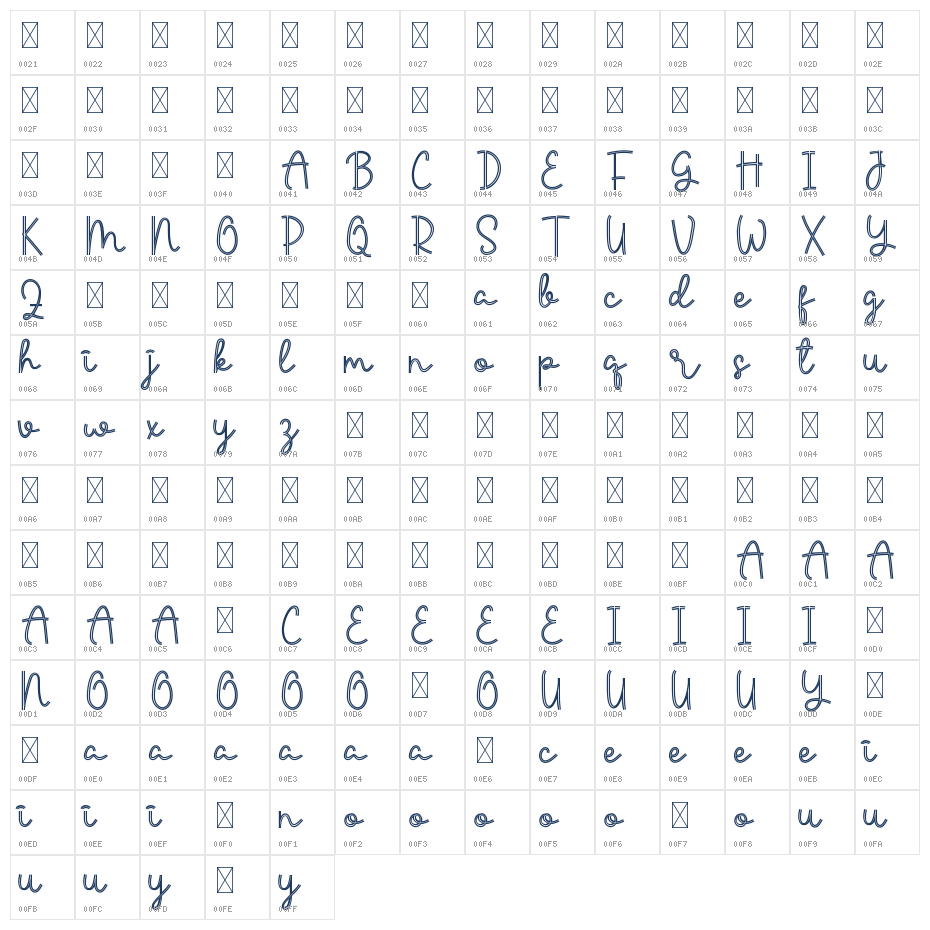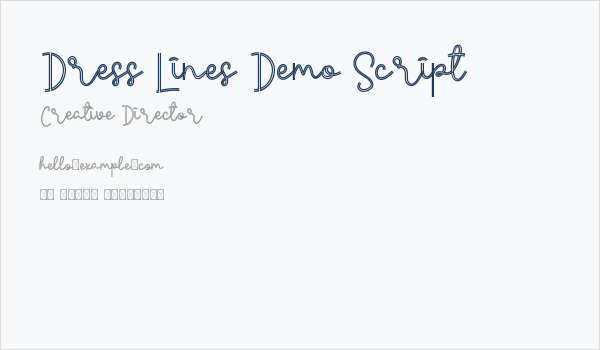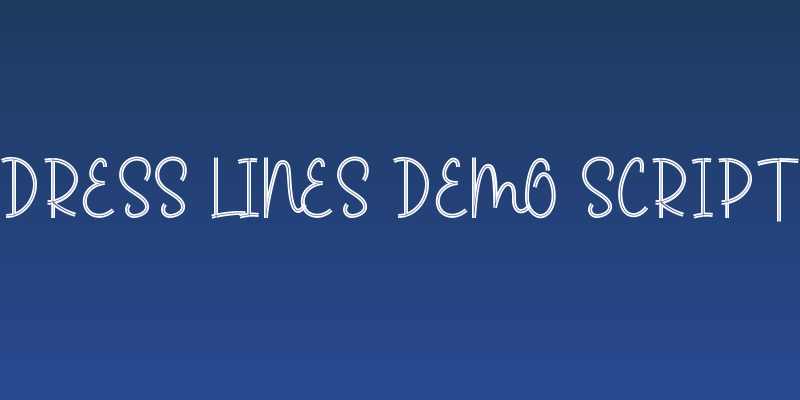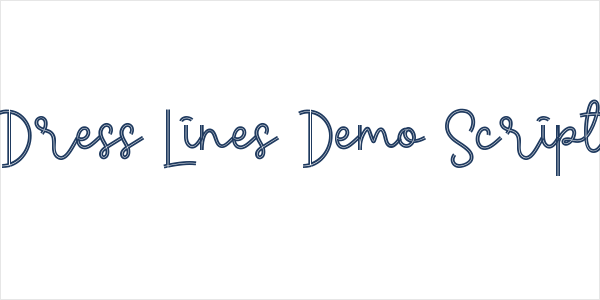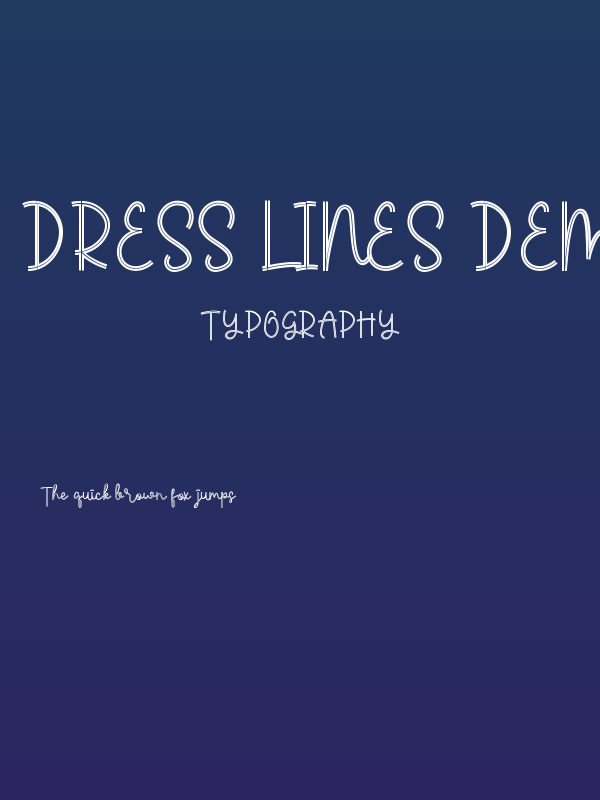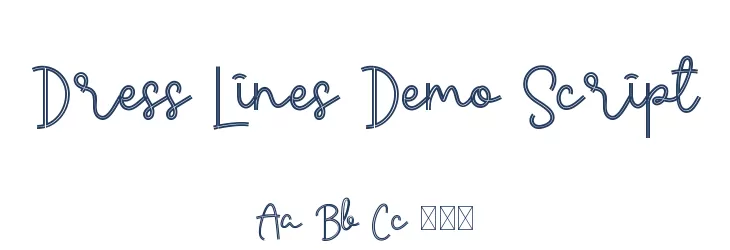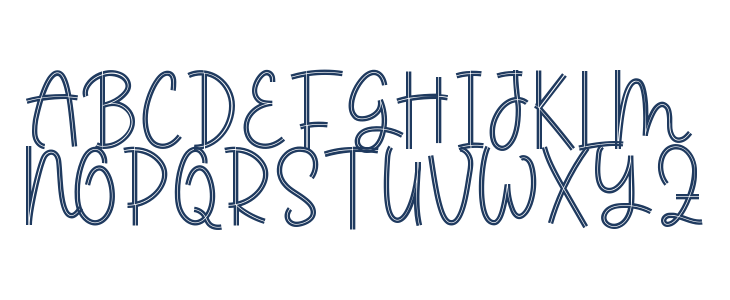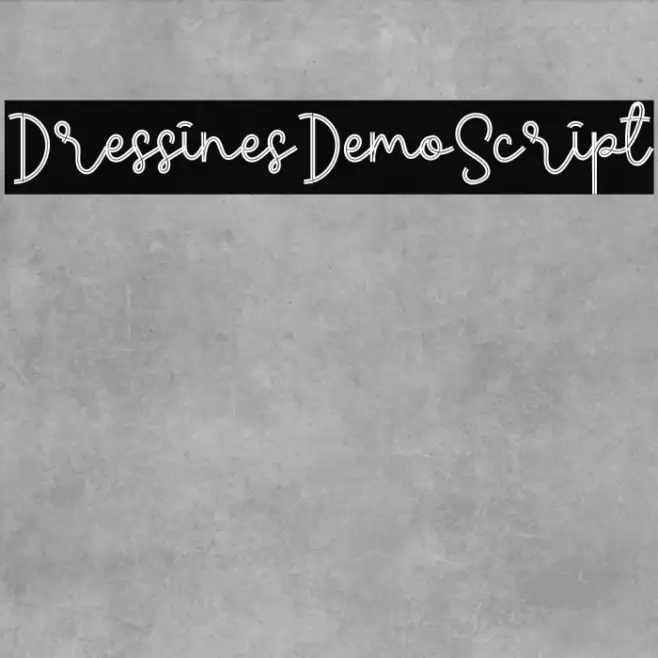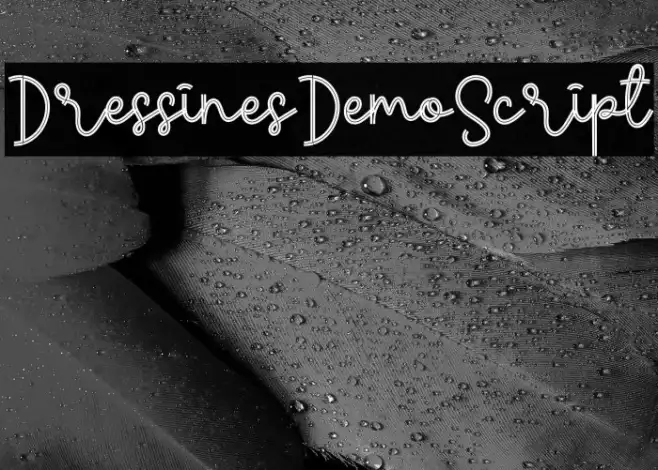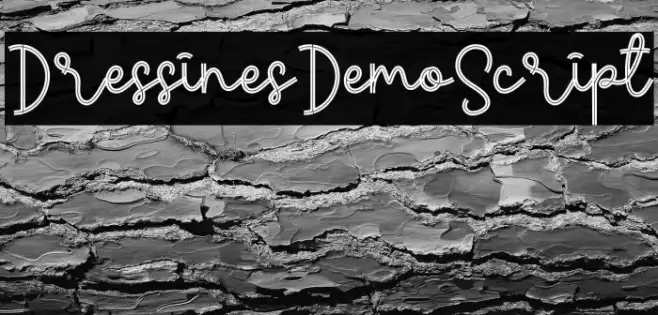
Dress Lines Demo Script Font
Dress Lines Demo Script Description
A playful, handwritten script font with a casual and friendly appearance, featuring smooth, flowing lines and a slightly whimsical style.
| Overall Style | Casual, Friendly, Playful |
| Use Case | Invitations, Greeting Cards, Logos, Branding |